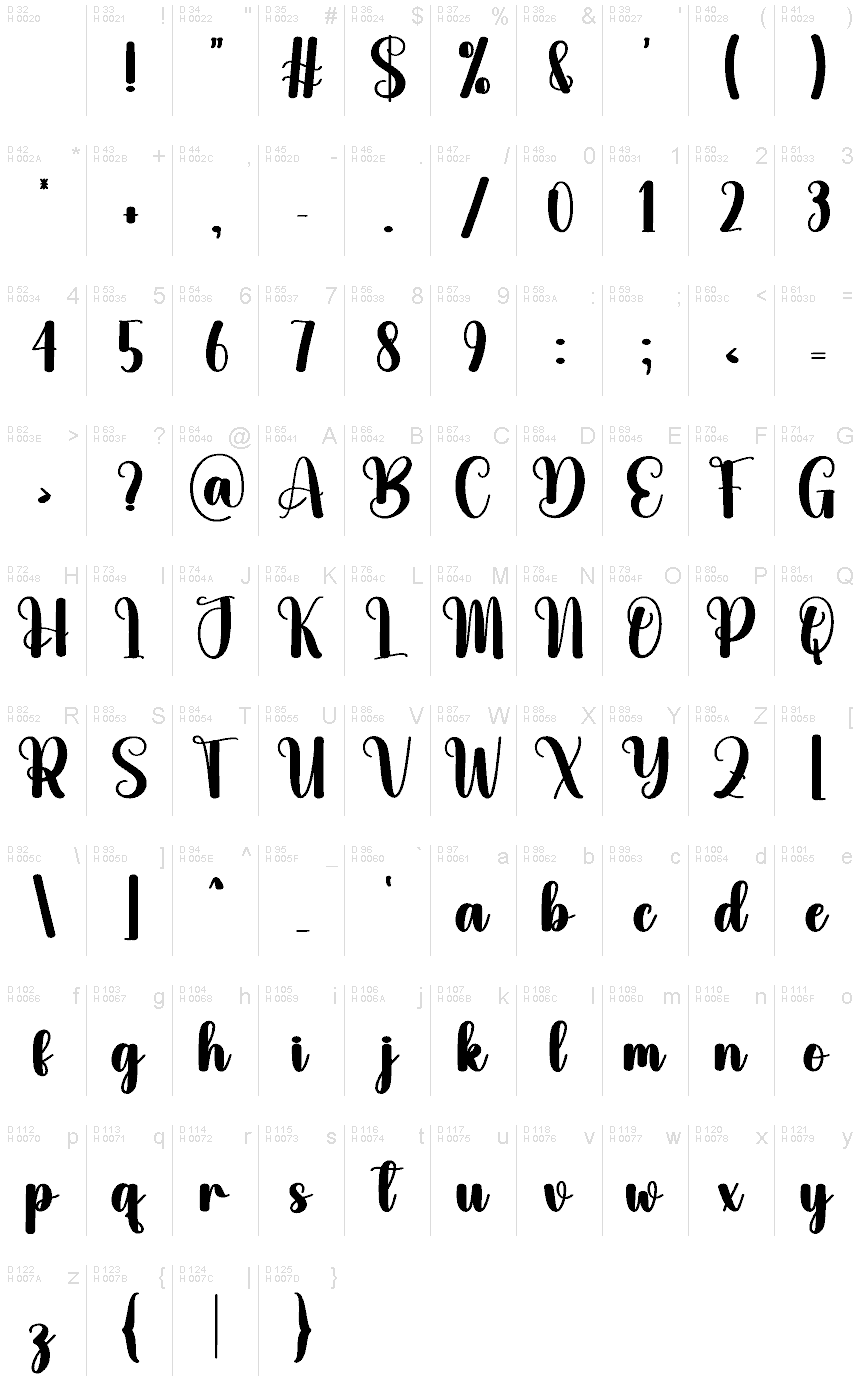
Sailing
Sailing font by Andi Moz is a free brush font with elegant flowing characters, continuous looping structure, and script-like impressions. Modern and inviting, the typeface boasts smooth curves without compromising on sophistication. Decorative flair adds to the playful nature of the design while keeping letters readable and discernable for a wide range of creative projects.
Versatility makes Sailing an ideal choice for branding projects like logos/wordmark designs or letterheads. Use it for social media headings, web or mobile app advertising, product packaging (especially cosmetics), magazine/newspaper cover stories, greeting cards/invitations, clothing/fashion industry labels/tags, and more.